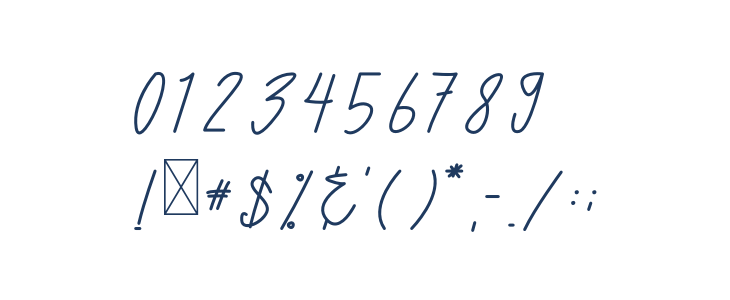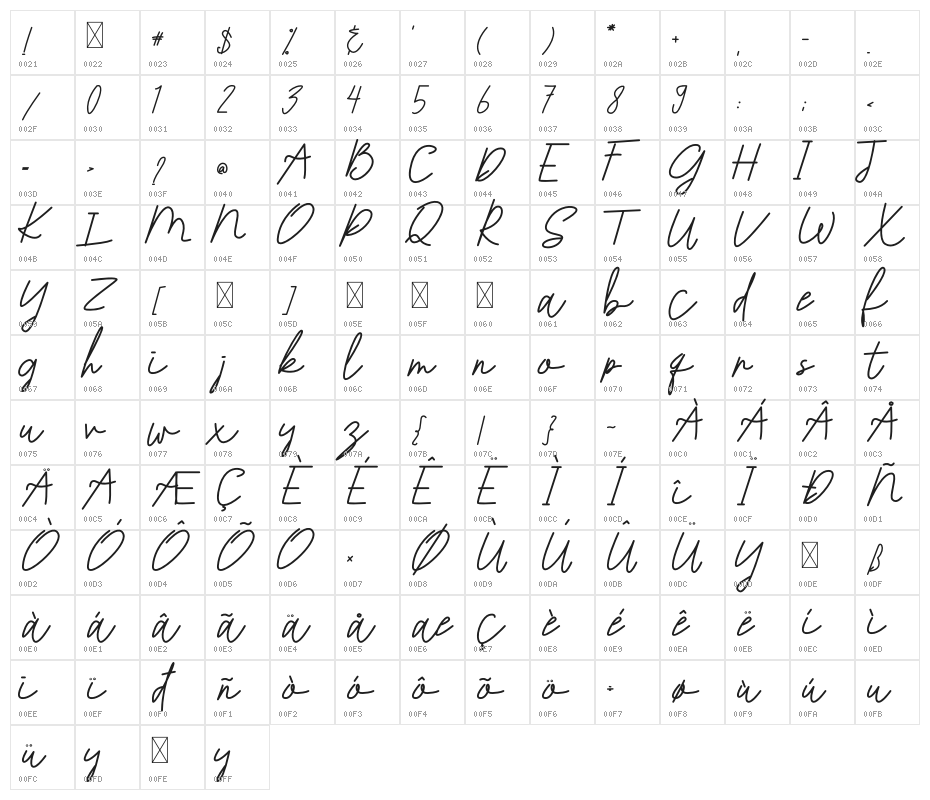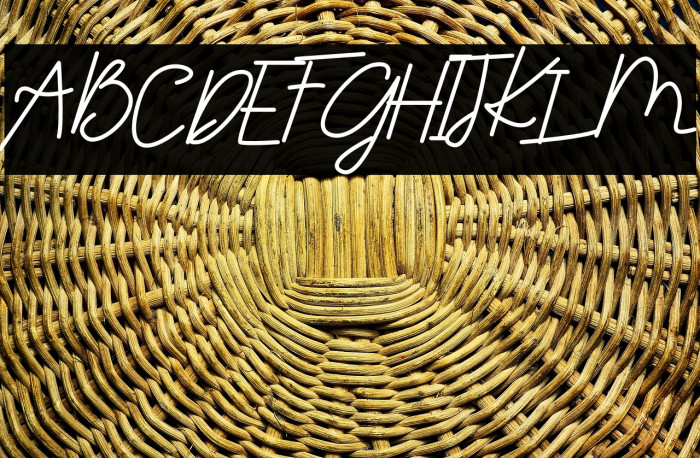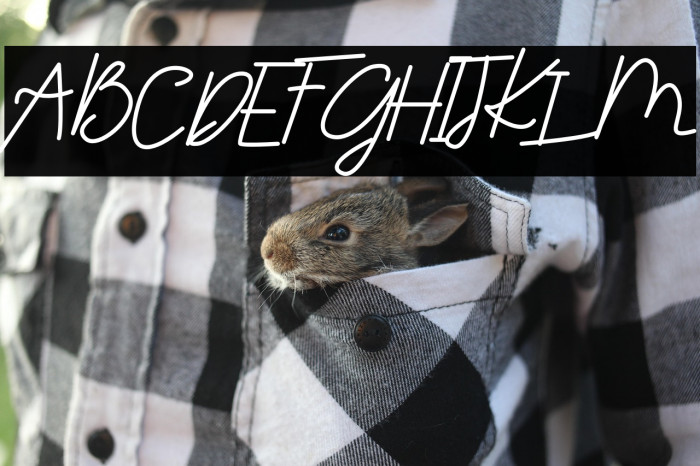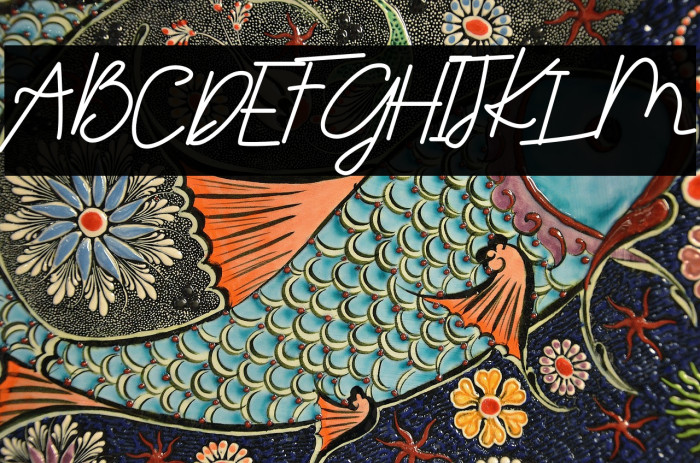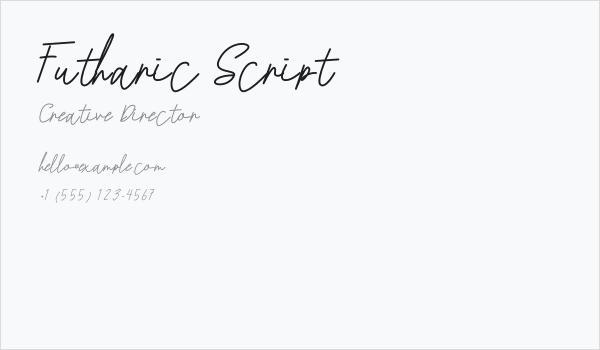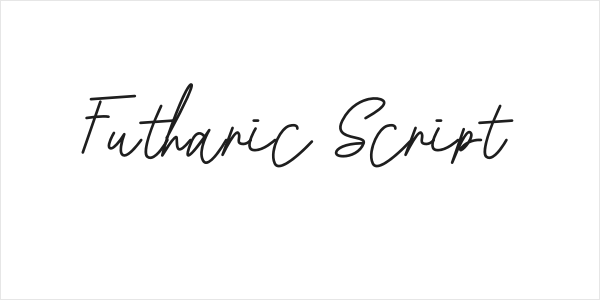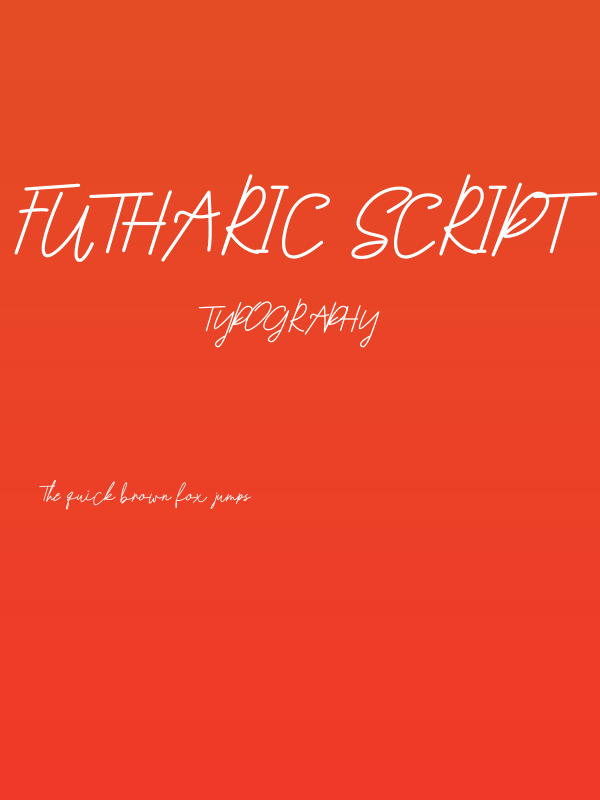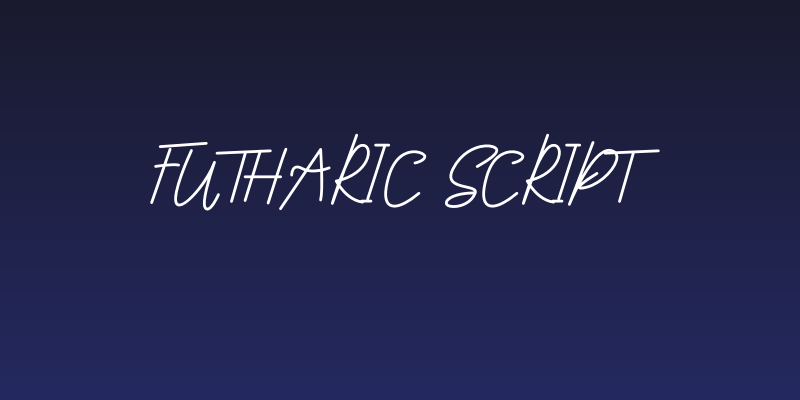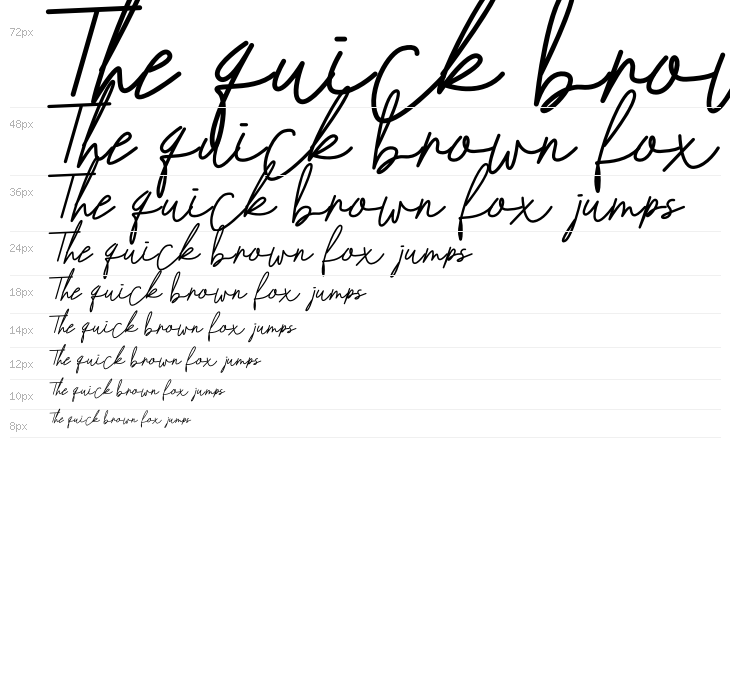
Futharic Script Font
Futharic Script Description
This font features a fluid, handwritten style with a casual and personal touch. The letters are connected in a cursive manner, giving it a seamless flow that mimics natural handwriting. The strokes are smooth and consistent, with a slight slant that adds to its dynamic appearance. The uppercase letters are bold and prominent, while the lowercase letters maintain a more delicate and refined look. Numbers and special characters are integrated seamlessly, maintaining the overall aesthetic. This font exudes a sense of elegance and informality, making it versatile for various design needs.
Overall StyleCasual, Elegant
Use CaseLogos, Invitations, Social Media Graphics
Proposed ProjectsIdeal for personal invitations, greeting cards, branding projects, and social media graphics.